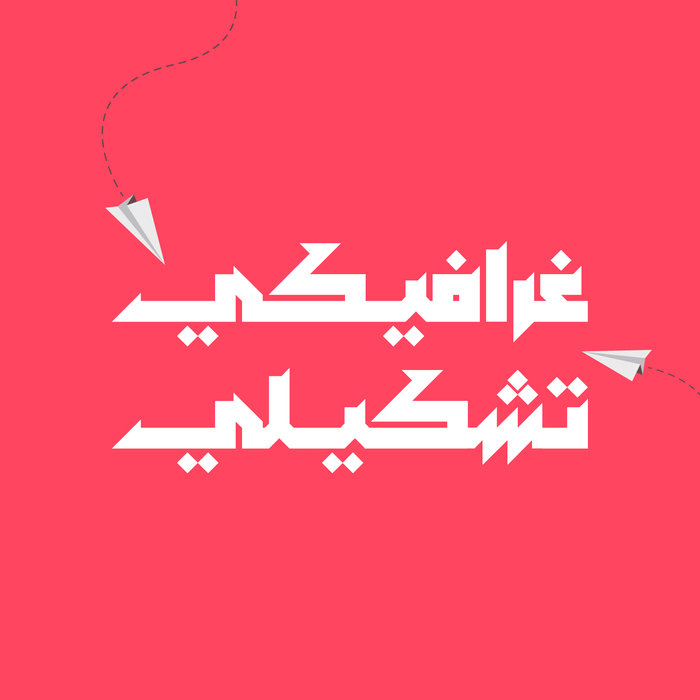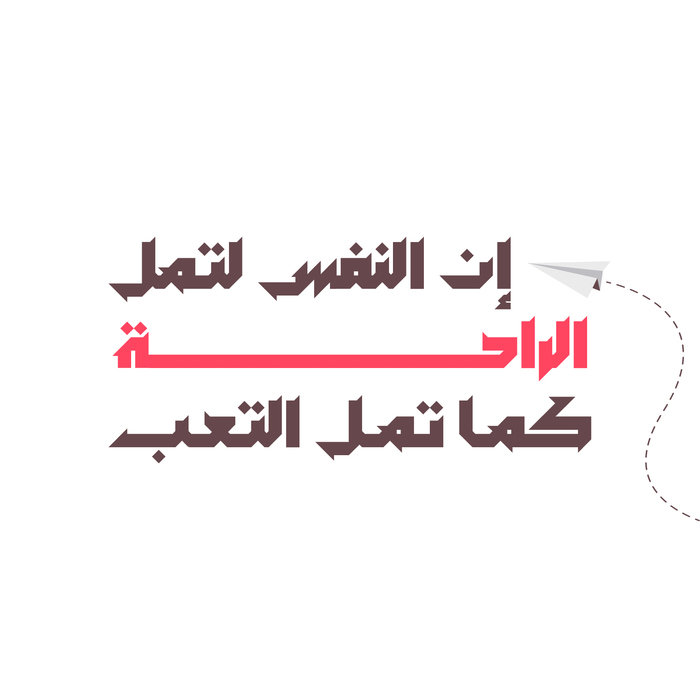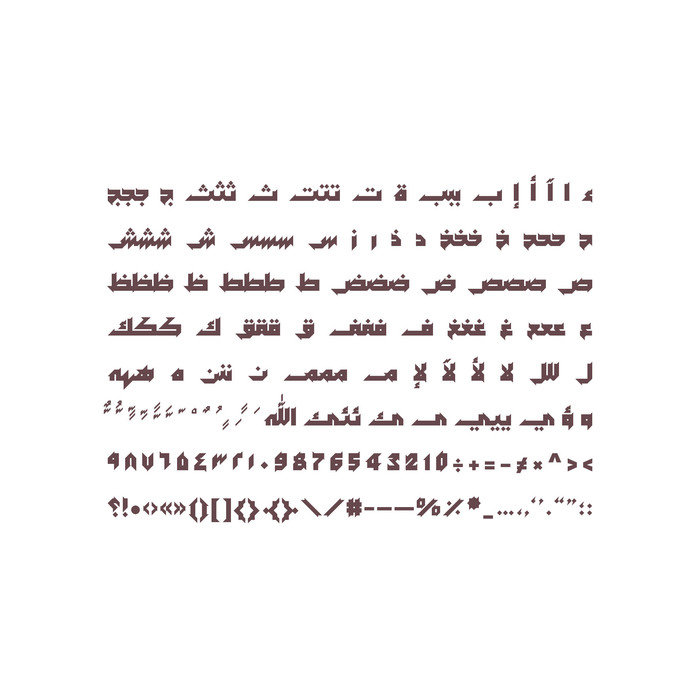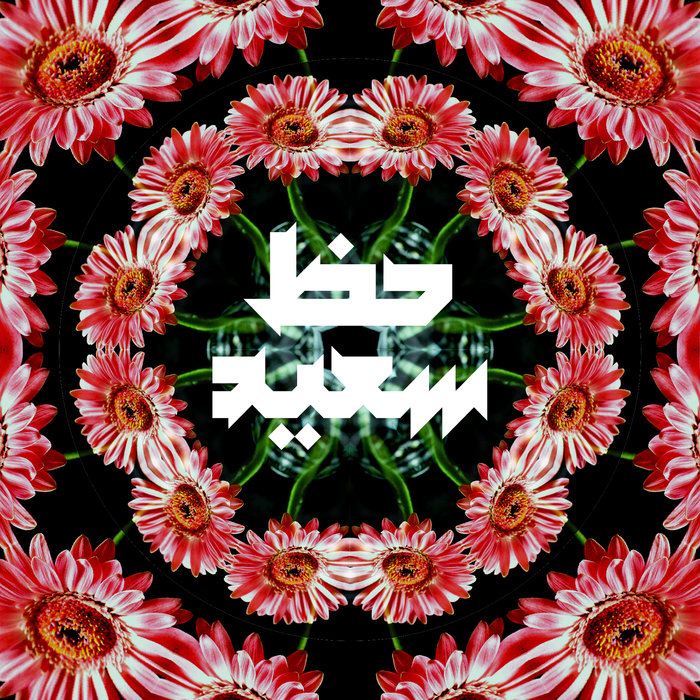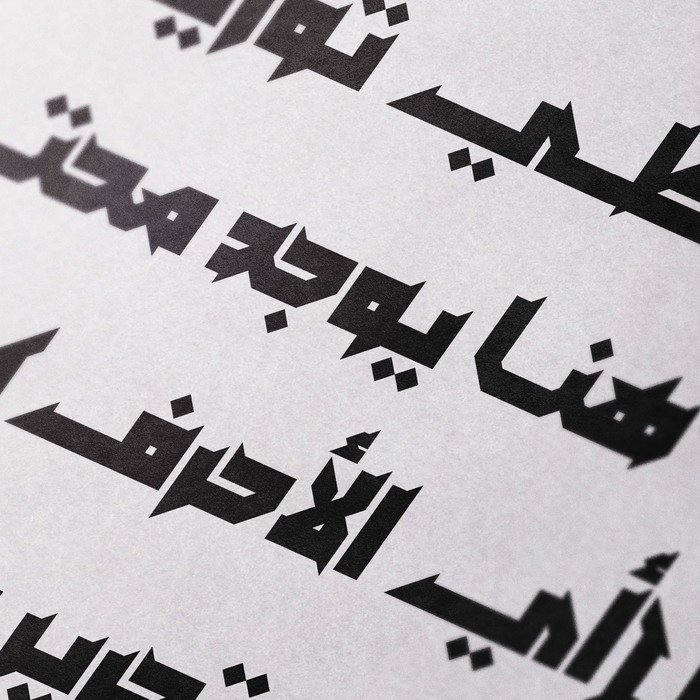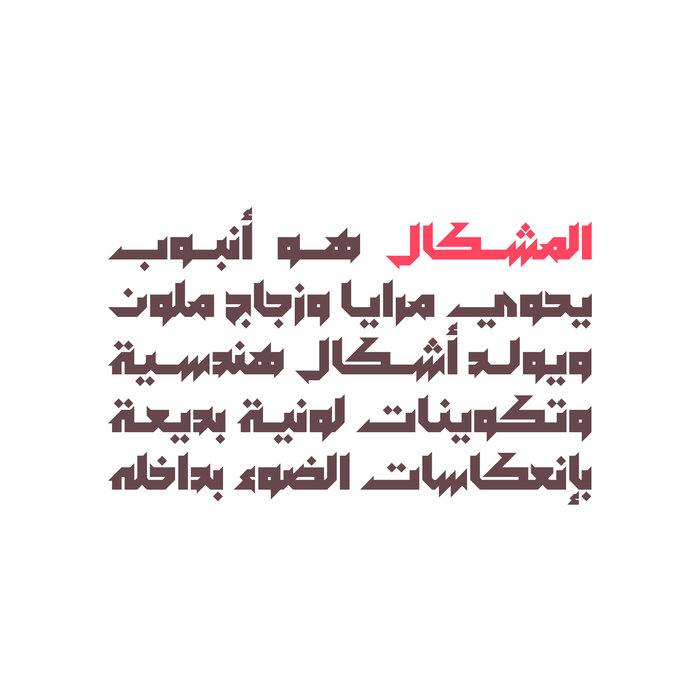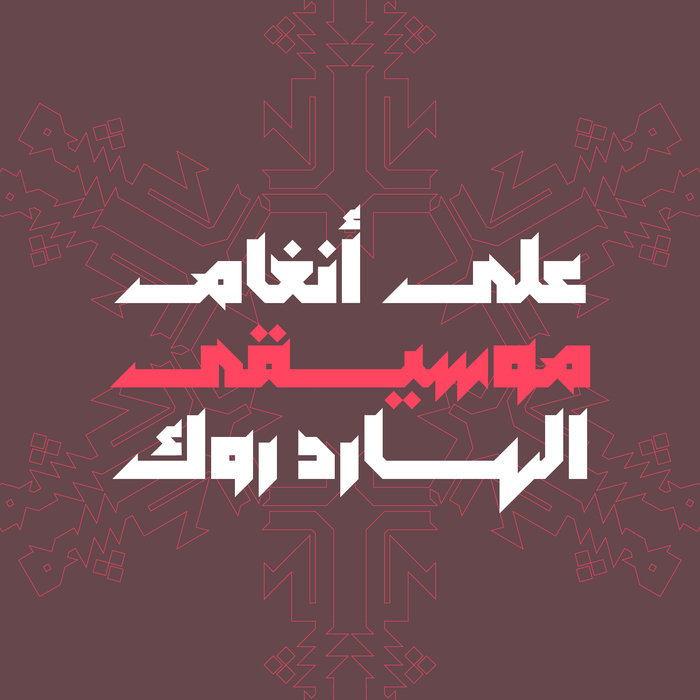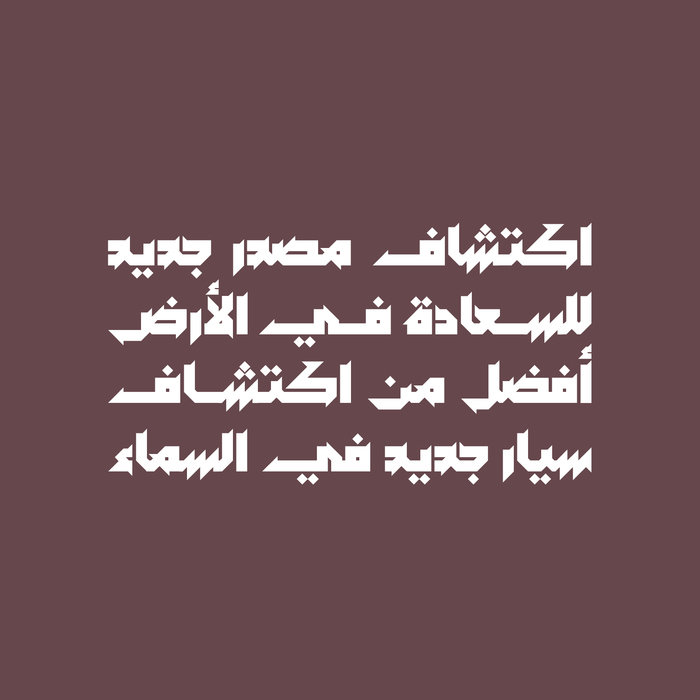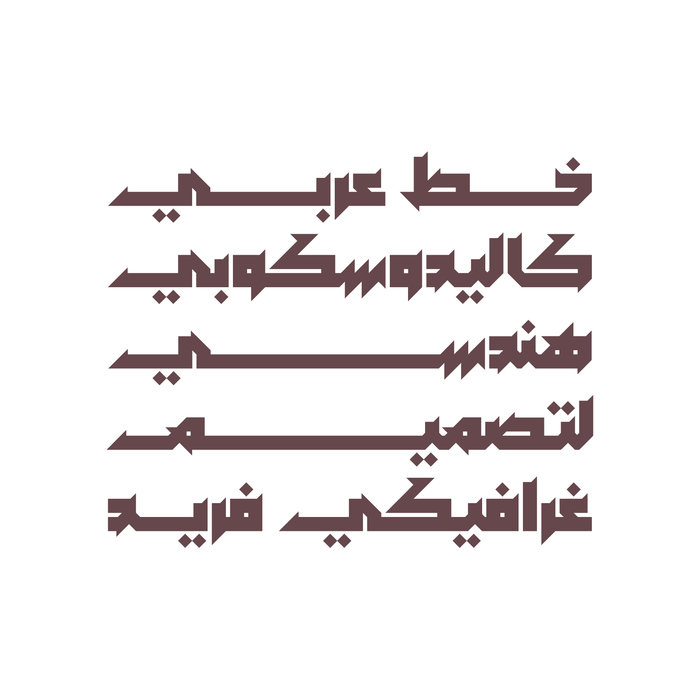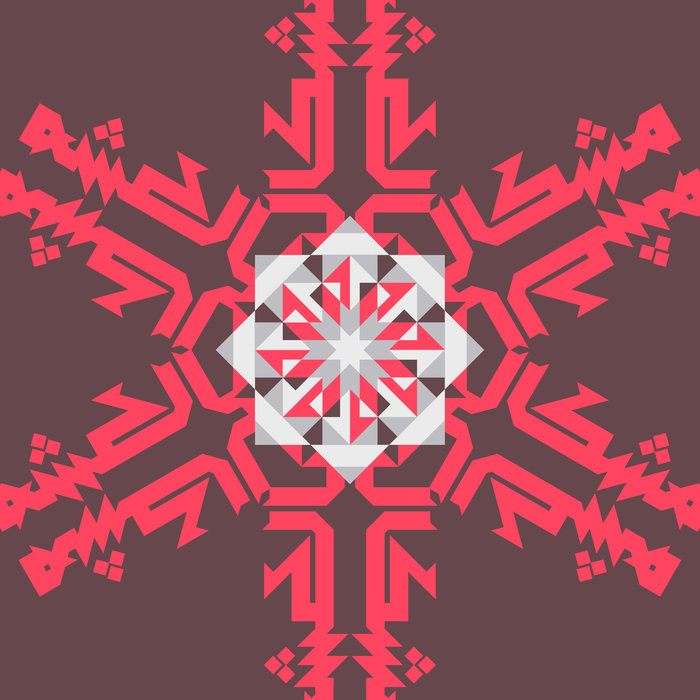
Meshkal - Arabic Font
Meshkal (which is the Arabic word for Kaleidoscope) is an Arabic display font that is inspired by the kaleidoscopic geometries. The font design features a solid structure with sharp edges and it suits typographic compositions and graphic design projects. Meshkal works with web, print and mobile applications.